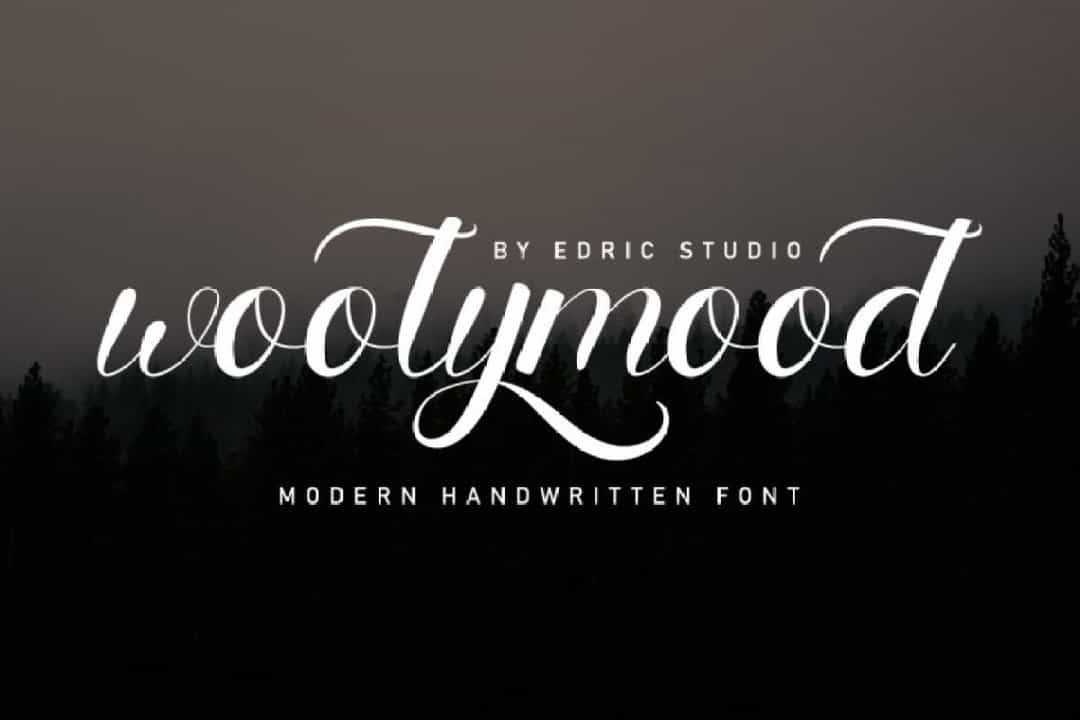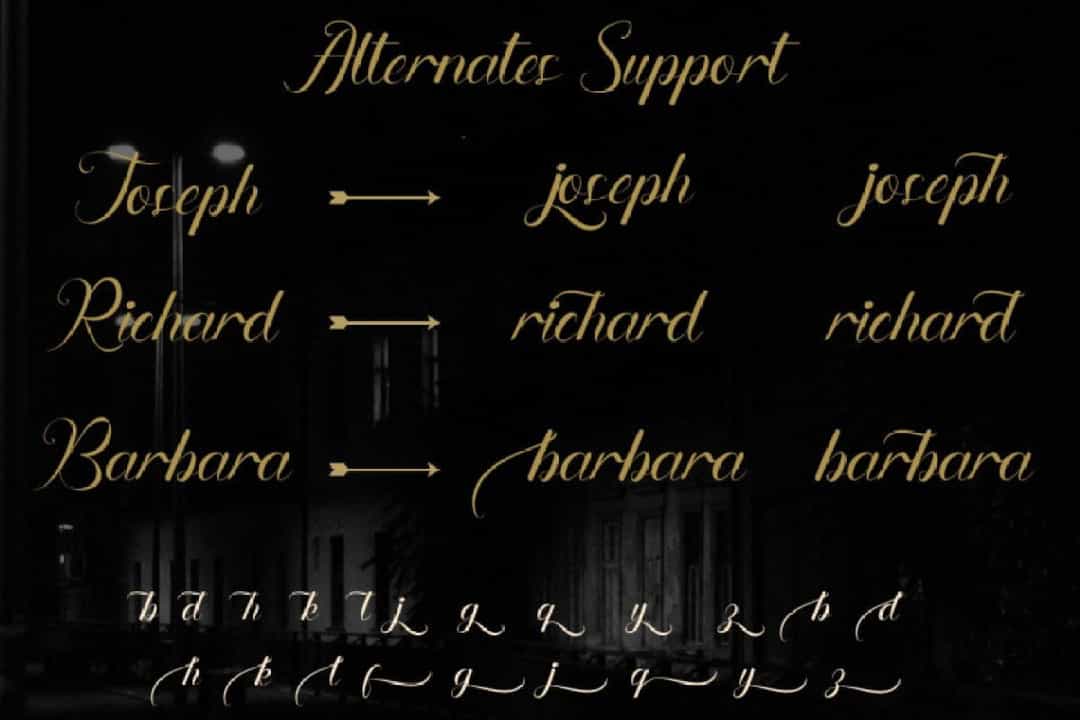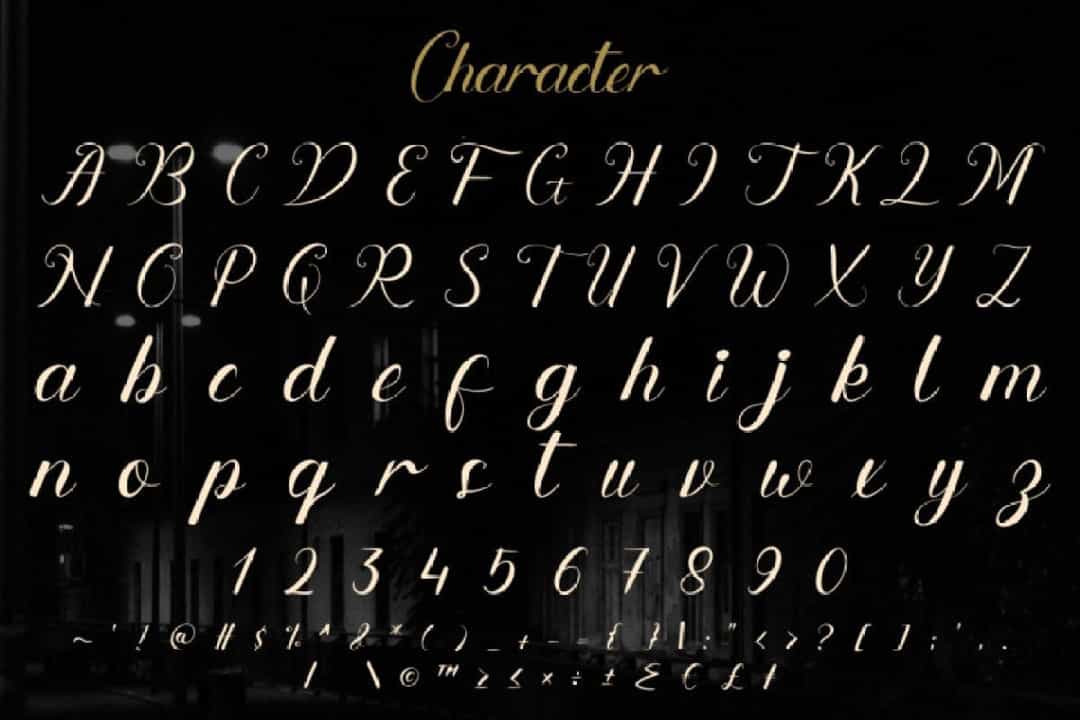
Woolymood Font is a beautiful handwritten font with an elegant and elegant, elegant and elegant look and comes with a beautiful character set with well-thought-out kerning and spacing that give the font a nice balance. With an extended license, Woolymood Font can be used for any project need (branding and logo design, stationery, business cards and flyer,